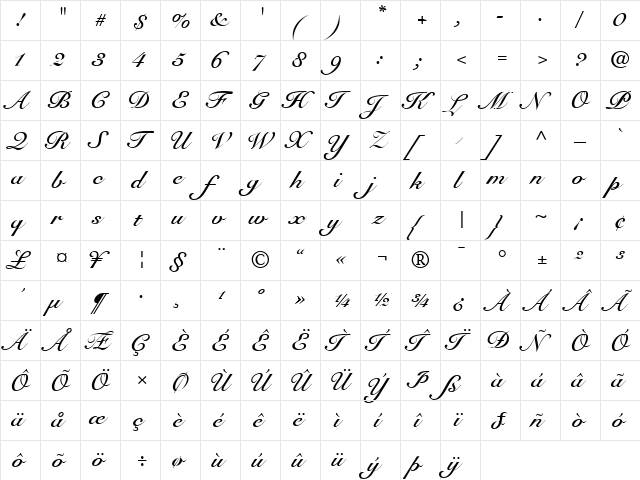
Snell Roundhand Regular
Design Context for Snell Roundhand Typeface
Snell Roundhand brings a calligraphic fluidity to the page — its connecting strokes and expressive curves give it an unmistakably human quality.
Font Pairing: Combine Snell Roundhand with a simple geometric sans for maximum contrast — the tension between flowing curves and clean structure is a classic typographic pairing.
Pro Tip: Pair Snell Roundhand with a clean sans-serif for supporting text. The contrast between fluid script and geometric structure creates an elegant typographic hierarchy.